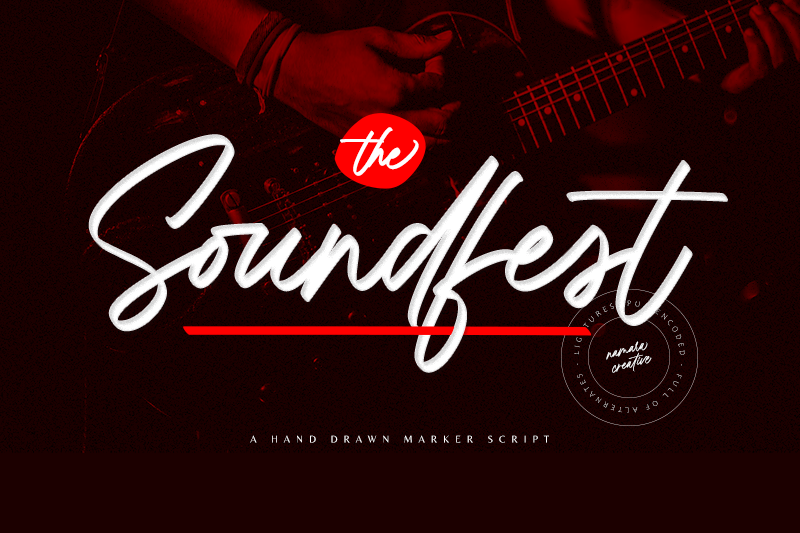
Soundfest is a modern marker script font, carefully crafted letters / alphabet in a completely natural hand-drawn look. Over 450+ characters (include : alternate sets, ligatures and multilingual support) NOTE : - This font is PERSONAL USE ONLY, NO COMMERCIAL USED ALLOWED. - Link to purchase Full Version and Commercial license : https://onedsgn.com/product/soundfest/ |